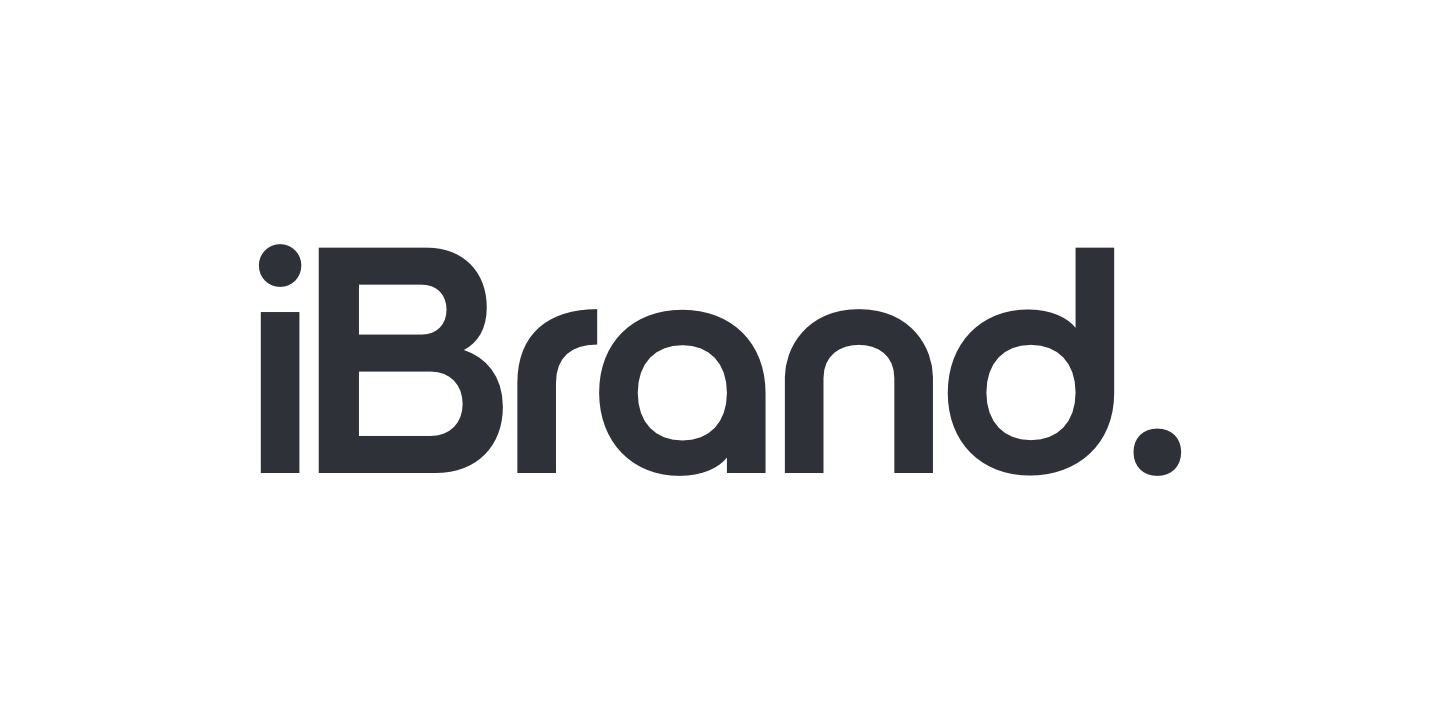
Elevate your digital branding with iBrand Font Free Download – a sleek, contemporary sans-serif designed specifically for modern tech companies and startups. This ultra-clean typeface combines geometric precision with subtle organic touches, creating the perfect balance of professionalism and approachability for today's digital landscape.
Why iBrand Excels:
8 Weight System from Thin to ExtraBlack
Optimized for UI/UX with perfect screen readability
Subtle Rounded Terminals for friendly tech aesthetic
Multilingual Support including Cyrillic and Greek
Digital-First Applications:
Tech startup branding and apps
SaaS product interfaces
Digital agency identities
Smart device displays
Web3/crypto platforms
Standard and tabular numerals
Case-sensitive punctuation
Programming-specific glyphs
Design Tip: Use Medium weight for UI text, Bold for headlines. The thin weights work beautifully in dark mode interfaces.